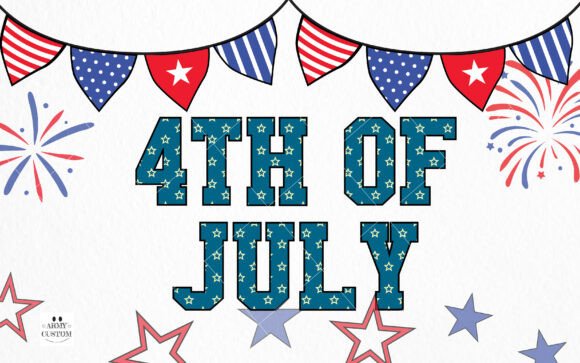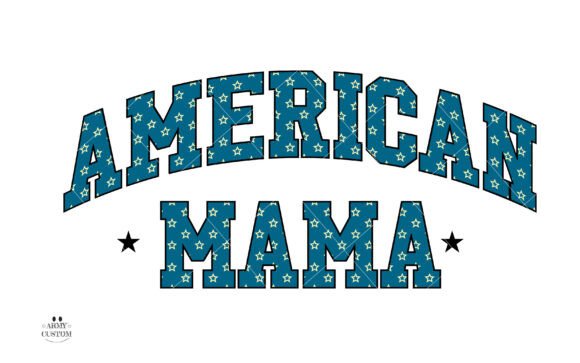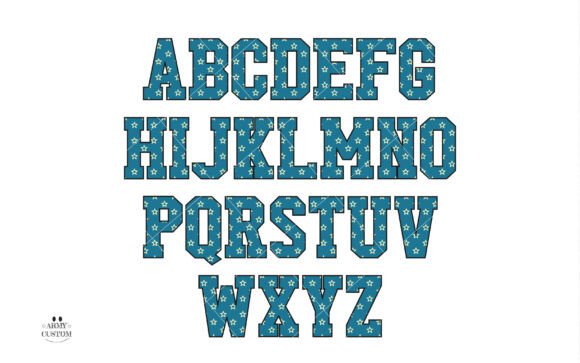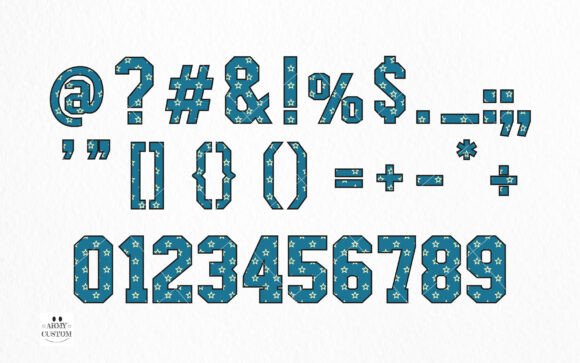
Unleashing the Spirit of America: A Deep Dive into the American 4th of July Font
I’ll never forget the summer I landed my first freelance design project – a 4th of July party invitation for a client’s family gathering. As I scrolled through my font library, searching for the perfect fit, I realized that finding a typeface that truly captured the essence of American patriotism was no easy feat. That was until I stumbled upon the American 4th of July Font. It’s been a game-changer ever since, and I’m excited to share its story with you! 🎉
A Patriotic Masterpiece
True to its name, the American 4th of July Font embodies the charm and spirit of American aesthetics. This beautifully crafted typeface is inspired by the heart of the United States, making it the perfect addition to any creative project that requires a touch of patriotism. Whether you’re designing invitations, crafting DIY decorations, or creating social media graphics, this font is sure to infuse an unmatched sense of American pride into your work.
- ✨ Unique and authentic design that captures the essence of American patriotism
- ✅ Stunning OpenType features, glyphs, and stylistic alternates
- 🤔 Some users may find the font too decorative for certain projects, but this is also what makes it so unique!
The American 4th of July Font was created with the intention of capturing the essence of American patriotism and charm. The designer drew inspiration from classic American typography, combined with a touch of modern elegance. The result is a unique and authentic font that embodies the spirit of the United States.